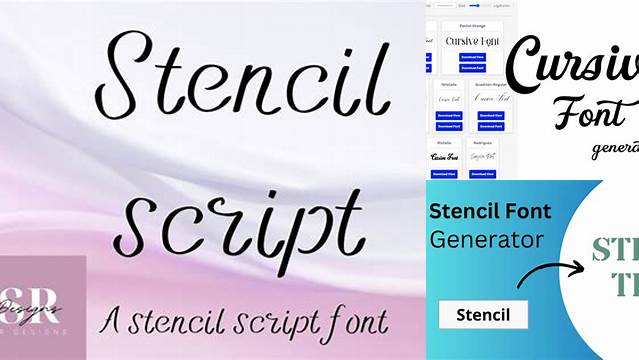
Free Cursive Stencil Font Generator: Your Design Guide
Hey guys, are you looking for a super cool way to jazz up your projects with some elegant cursive fonts? Well, you're in the right place! We're diving deep into the world of free cursive stencil font generators, and I'm gonna show you can create amazing designs without spending a dime. Whether you're a seasoned designer or just starting out, this is gonna be a game-changer for you. Let's get started and explore how you can use these fantastic tools to add a touch of class and creativity to your work. We'll cover everything from what these generators are, why they're awesome, and how to use them to create eye-catching designs.
What is a Free Cursive Stencil Font Generator?
So, what exactly is a free cursive stencil font generator? Basically, it's a nifty online tool that allows you to convert regular cursive fonts into stencil versions. Stencil fonts, as you probably know, are fonts designed with little bridges or gaps in the letters, making them perfect for cutting or tracing. Think of those classic signs you see, or even stencils for crafts and DIY projects. These generators take a beautiful cursive font and automatically create a stencil version, ready for you to use. The best part? Many of these generators are completely free and super easy to use. You just type in your text, choose your font, and the generator does the rest. Within seconds, you'll have a stencil font ready to download and use for your projects. This is a fantastic way to add a personalized touch to your projects, be it for invitations, posters, or even custom t-shirts. The flexibility offered by these generators makes them a must-have tool for anyone looking to enhance their creative endeavors. No need to be a design expert or spend hours manually creating stencils – these tools have got you covered.
When you use a free cursive stencil font generator, the possibilities are endless. You can easily create unique designs for various projects. For example, imagine creating elegant invitations for a wedding or a special event. The cursive font adds a touch of sophistication, while the stencil style ensures the text is easy to cut and apply. You could also design personalized posters for your home or gifts for friends and family. The ability to customize your text and choose from various fonts allows you to tailor the design to your specific needs. The free cursive stencil font generator is a versatile tool, perfect for both personal and professional use. It streamlines the design process, saving time and effort. So, whether you are working on a small craft project or a large-scale design, these generators are an invaluable asset to your design toolbox. You can easily transform ordinary text into something extraordinary. The result? Designs that are both visually stunning and highly practical, allowing you to make a lasting impression. The convenience and accessibility of these online tools make them a great option for anyone looking to elevate their creative output.
Benefits of Using a Cursive Stencil Font Generator
Using a cursive stencil font generator comes with a ton of benefits, making your design projects a breeze. First off, it's super easy and quick. You don't need any special design skills or software knowledge. Most generators have a simple, user-friendly interface. You can create your stencils in just a few clicks. This ease of use is a huge time-saver, especially when you have multiple projects or tight deadlines. Then there's the creative freedom. These generators give you a wide range of font choices. From classic to modern styles, you can pick the perfect cursive font to match your project's aesthetic. Plus, you can often customize the size, spacing, and other details to get the exact look you want. This level of control allows you to make your designs truly unique. Furthermore, it saves you money. Since these tools are often free, you don't have to invest in expensive design software or fonts. This makes it a great option for hobbyists, small business owners, and anyone on a budget. And, using stencil fonts ensures your designs are practical. Stencils are great for projects that involve cutting, painting, or tracing. They make it easy to create consistent and professional-looking results. Overall, a cursive stencil font generator is a powerful tool. It combines convenience, creative freedom, and cost-effectiveness. It's a must-have for anyone looking to create stunning designs quickly and easily.
How to Use a Free Cursive Stencil Font Generator
Alright, let's get down to business. Using a free cursive stencil font generator is as easy as pie. Here's a simple guide to get you started. First, you'll need to find a good generator online. Do a quick search for “free cursive stencil font generator,” and you'll find plenty of options. Once you find a generator you like, head to the website. The interface is usually pretty straightforward. You'll see a text input box where you can type your desired text. Then, look for a font selection menu. You'll be able to scroll through the available cursive fonts. Choose the one that fits your project's style. Some generators also let you customize the size, spacing, and other details. Play around with these settings to see how they affect your design. When you're happy with your text and font, look for a “generate” or “create” button. Click this button, and the generator will instantly create your stencil font. Finally, you'll see a preview of your stencil font. You can usually download it in various formats, like SVG, PNG, or PDF. Choose the format that best suits your needs. If you need to cut your stencil, download it as an SVG file. If you want to use it digitally, use PNG or PDF. With these simple steps, you can create amazing designs in minutes. It's truly that easy!
Step-by-Step Guide to Generating a Cursive Stencil Font
Okay, let's break down the process step by step. First things first, choose your free cursive stencil font generator. As mentioned, many are available online, so pick one that suits you. Step 1: Enter Your Text. Once you're on the generator's website, find the text input box and type in the words or phrases you want to transform into a stencil. This could be anything from a name to a quote. Step 2: Select Your Font. Look for the font selection menu, where you'll see a list of cursive fonts. Scroll through the options and choose the one that best matches your design's aesthetic. You can usually preview the font as you scroll, which helps you decide. Step 3: Customize Your Settings. Many generators offer customization options like font size, letter spacing, and line spacing. Adjust these settings to achieve the perfect look for your project. Step 4: Generate Your Stencil. Once you're happy with your text, font, and settings, find the “generate” or “create” button and click it. The generator will automatically create a stencil version of your text. Step 5: Download Your Stencil. You'll be able to download your stencil font in different formats, such as SVG, PNG, or PDF. Choose the format that is best suited for your needs. SVG files are great for cutting. PNG or PDF are good for digital use. And that's it! With these steps, you'll be creating stunning designs in no time. It's a fun, easy, and effective way to add a personal touch to your projects.
Best Uses for Cursive Stencil Fonts
So, what can you actually do with these awesome cursive stencil fonts once you've generated them? The possibilities are pretty endless! Stencil fonts are incredibly versatile, and their cursive style adds a touch of elegance to any project. One of the most popular uses is for crafts and DIY projects. Imagine creating custom signs, wall art, or even personalized gifts. Stencil fonts are perfect for painting or cutting out designs on various materials. You can create stunning home decor pieces, like wooden signs with inspirational quotes or family names. You can also make beautiful stencils for fabric projects, like personalized t-shirts, tote bags, or pillows. Cursive fonts give these items a sophisticated and stylish look. Also, they're great for invitations and announcements. Whether it's a wedding invitation, a birthday card, or a special event announcement, a cursive stencil font adds a personal touch. It's perfect for creating elegant and memorable invitations. The stencil style ensures the text is easy to read and apply, giving your invitations a professional look. Another fantastic use is for scrapbooking and journaling. Stencil fonts are ideal for adding headings, titles, or captions to your scrapbook pages or journal entries. You can create a unique and personalized layout that reflects your creativity. This makes your memories even more special. So, whether you're crafting, designing invitations, or scrapbooking, cursive stencil fonts are a fantastic tool. They help you to create stunning, personalized designs that stand out. The versatility of these fonts makes them perfect for various creative projects, ensuring your work looks professional and stylish.
Creative Project Ideas Using Cursive Stencil Fonts
Alright, let's get those creative juices flowing with some project ideas. First, let's talk about crafting personalized gifts. Using a cursive stencil font, you can create custom presents for friends and family. Think about designing a wooden sign with a family name. It’s perfect for displaying in a home. Or create a set of personalized mugs with names or quotes on them. Stencil fonts are also ideal for crafting custom apparel. Design a t-shirt with a motivational quote or a name in a beautiful cursive font. Use a stencil to paint the design on the fabric. This creates unique and stylish clothing. Plus, it's a fun and easy project. If you're into home decor, cursive stencil fonts can transform any space. You can create wall art, canvas paintings, or decorative pillows. Design a sign with a favorite quote or an inspirational message. Display it in your living room or bedroom for a touch of elegance. You can also create stencils for painting on furniture or other surfaces. Finally, don't forget about scrapbooking and journaling. Use cursive stencil fonts to create headings, titles, and captions. This helps you create stunning and visually appealing layouts. It's also a great way to make your journals even more personal. From personalized gifts to home decor and scrapbooking, cursive stencil fonts open up a world of creative possibilities. They allow you to create unique and stunning designs with ease. So, grab your favorite font generator and start creating! The sky's the limit when it comes to what you can do.
Tips for Choosing the Right Cursive Font
Choosing the right cursive font is crucial for the success of your project. The font you choose will set the tone and style of your design. Here's how to pick the perfect font. First, consider your project's purpose. Is it for a wedding invitation? Or a casual sign for your home? The purpose will guide your font selection. For elegant projects, choose classic and sophisticated fonts. For something more casual, opt for a playful and modern style. Think about the readability of the font. Ensure the font is easy to read, especially for longer text. Some cursive fonts are more elaborate than others. If your text is lengthy, pick a font that is simple and legible. You want your message to be understood clearly. Think about the overall aesthetic of your project. The font should complement the other elements in your design. Consider the color palette, images, and other design elements. Choose a font that fits well with the project's style. You can also try different fonts to see which one works best. It’s a good idea to create a few samples with different fonts. Then compare them to see which one looks the best. When in doubt, keep it simple. Sometimes, the most elegant designs use simple, classic fonts. These fonts are timeless. They won't go out of style. Ultimately, the right font is the one that best conveys your message. It should look great with the rest of your design. So take your time. Experiment with different options. Then choose the one that meets your needs.
Considerations for Font Readability and Style
Conclusion: Get Creative with Free Cursive Stencil Font Generators
So, there you have it, guys! We've covered everything you need to know about free cursive stencil font generators. From what they are, how to use them, and all the amazing things you can do with them. They're incredibly easy to use and offer endless creative possibilities. You can create beautiful designs without any design skills or spending a fortune. So, go ahead and start experimenting with different fonts. Play around with the customization options. Most importantly, have fun! Whether you're crafting, designing invitations, or just looking to add a personal touch to your projects, these generators are a game-changer. Embrace your creativity. Let those amazing designs come to life. The world of design is at your fingertips. So, grab your favorite generator. Start creating your own unique, eye-catching designs today. And always remember to enjoy the creative process. Happy designing, everyone!